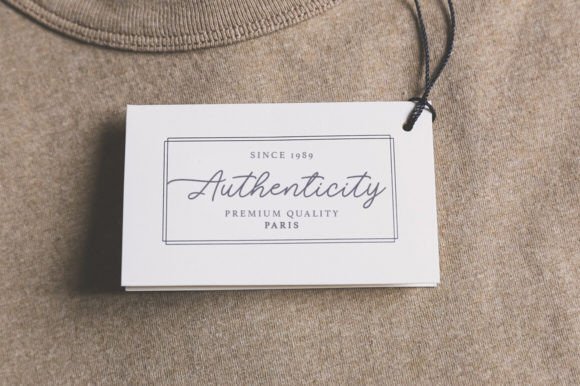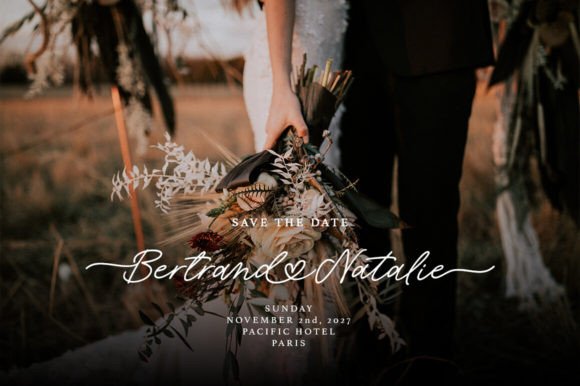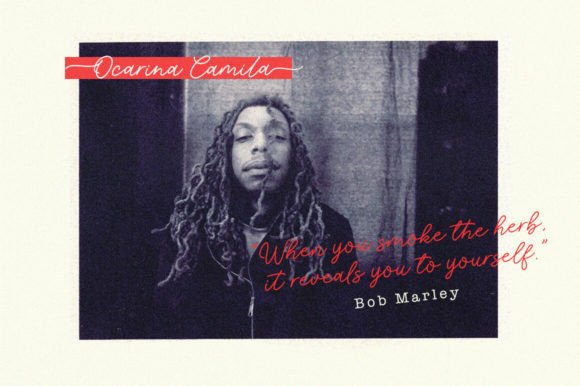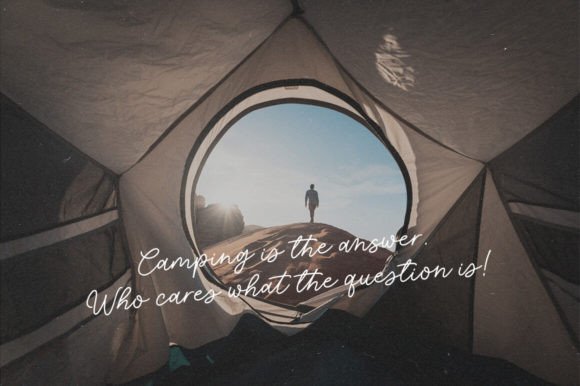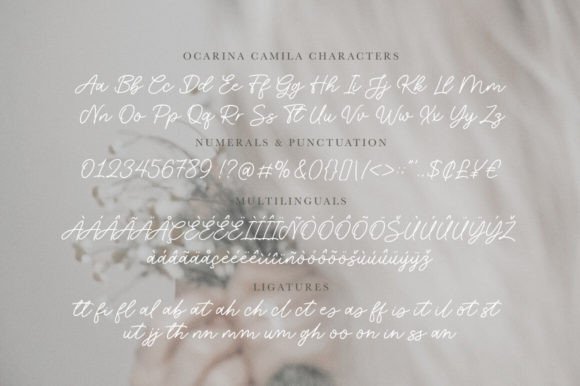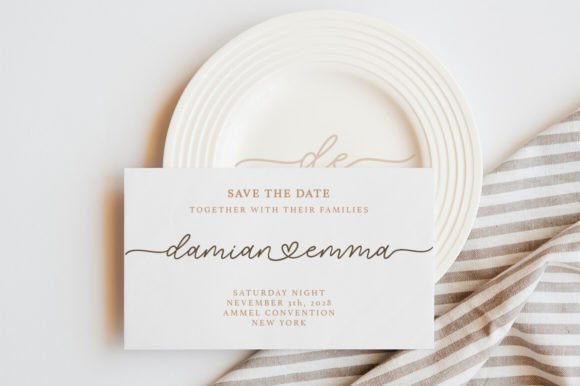
Introduction to Ocarina Camila Font
Introducing the new Ocarina Camila script font – A beautiful and super-chilled new handwriting font script with some sexy swashes, connecting hearts, and stylish ligatures.
Can be used for various purposes such as headings, signatures, logos, wedding invitations, t-shirts, letterheads, signage, labels, news, posters, badges etc.
Key Features of Ocarina Camila Font
Why Choose Ocarina Camila Font?
Ocarina Camila Font offers exceptional quality and versatility, making it a valuable addition to your design toolkit. Whether you’re creating for personal projects or commercial use, Ocarina Camila Font delivers professional results.